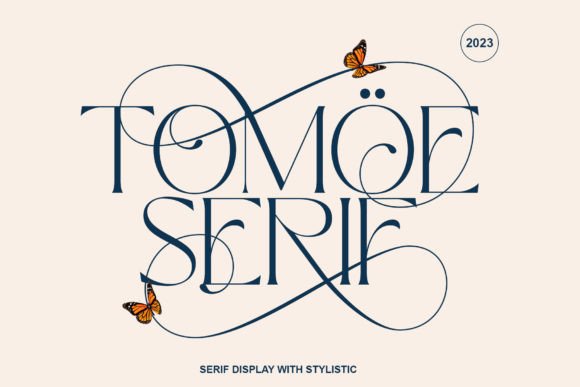
Looking for the best fonts for web maps? Look no further than Tomoe Serif Font! This exclusive and sleek serif font, created by handpik, exudes sophistication and refinement. Its slender lines and delicate serifs make every letter a work of art that commands attention.
Tomoe Serif Font is the perfect choice for anyone looking to add a touch of elegance and class to their project. Whether you're working on high-end branding or editorial design, this font is sure to impress. Its timeless beauty and classic design make it a versatile choice for any application.
With Tomoe Serif Font, you can elevate your designs and create a truly unique visual experience. Its captivating style and emotional appeal will grab your audience's attention and leave a lasting impression.